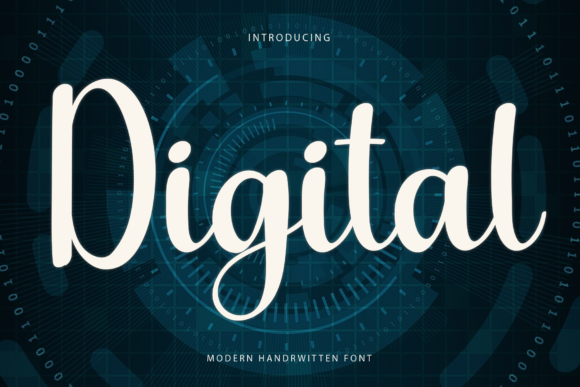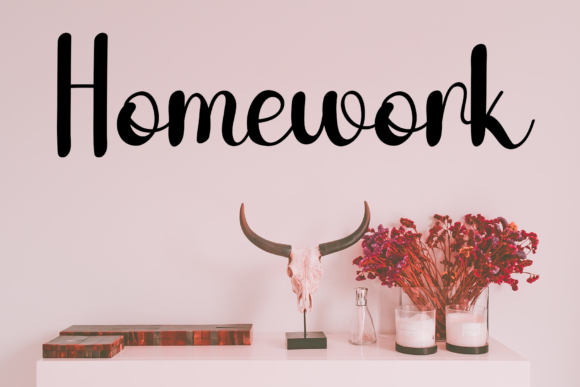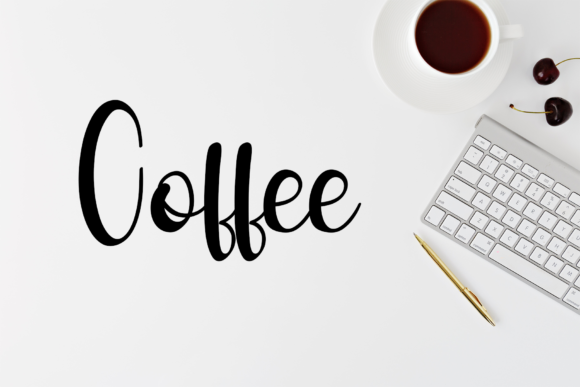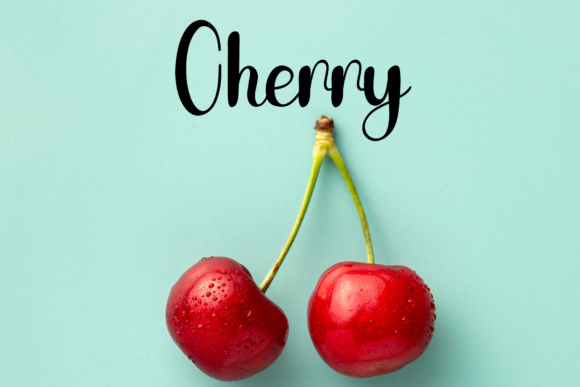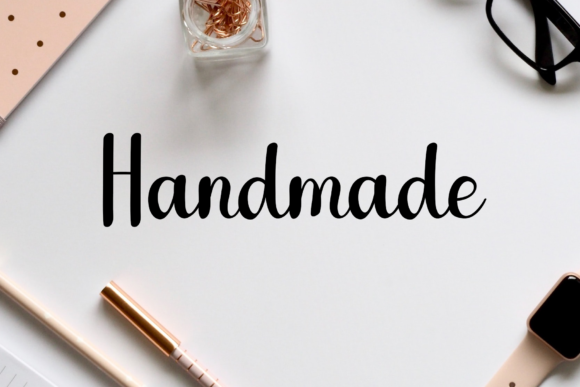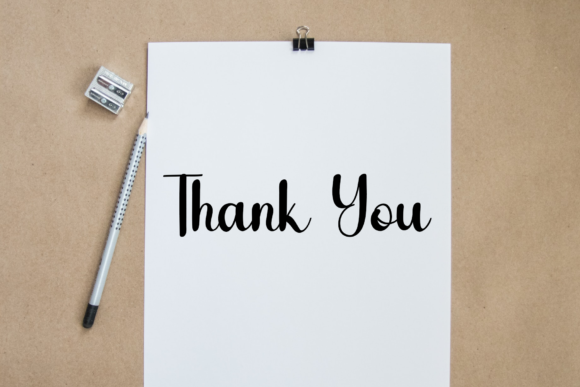
Digital Font
About Digital Font
Introducing Digital, a distinctive and round-lettered handwritten font meticulously crafted to bring your creative visions to life in the digital realm. This unique typeface is designed to produce exceptional results, making it a versatile choice for various applications such as writing titles, invitations, letters, and a wide array of other digital products.
The rounded letters of Digital contribute to its uniqueness, offering a playful and modern aesthetic. This font isn’t just a typographic choice; it’s a creative tool that transforms ordinary text into visually appealing elements, adding a touch of character and charm to your digital projects.
Imagine Digital being the focal point in your designs, creating eye-catching titles that draw attention and set the tone for your content. Whether you’re crafting invitations that exude a contemporary vibe or infusing letters with a personal touch in your digital communication, Digital adds a distinctive flair to your typography.
The careful craftsmanship behind Digital ensures that it meets the desired standards, delivering results that stand out in the digital landscape. Its versatility allows it to adapt seamlessly to a range of digital products, offering a harmonious blend of style and readability.
As you explore the possibilities with Digital, envision its application in various creative digital ventures. Picture it enhancing the charm of digital invitations, making titles pop in your digital designs, or simply adding a delightful touch to digital letters. Digital is not just a font; it’s the key to transforming your digital text into a unique and visually engaging expression of creativity in the digital space.